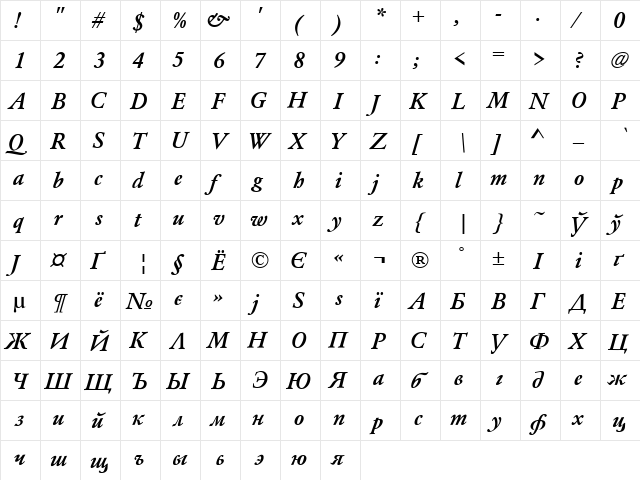
AZGaramondCTT Bold Font Preview
AZGaramondCTT Bold
Design Context for AZGaramondCTT Typeface
AZGaramondCTT takes a measured approach to typography — its balanced proportions and neutral character make it a reliable workhorse for both digital and print work. The heavy weight commands attention and anchors typographic hierarchies.